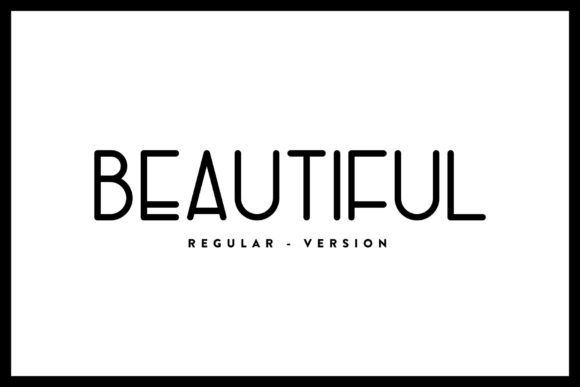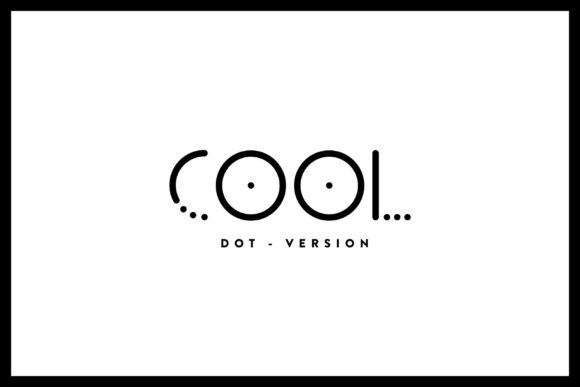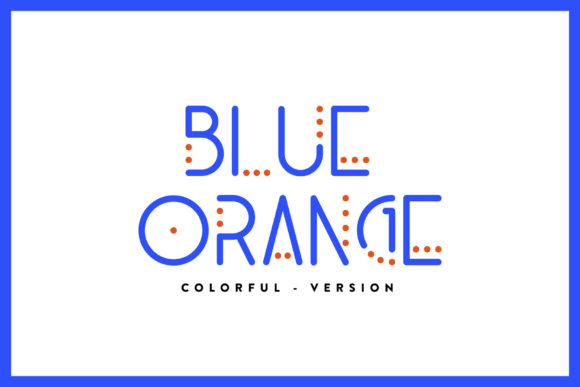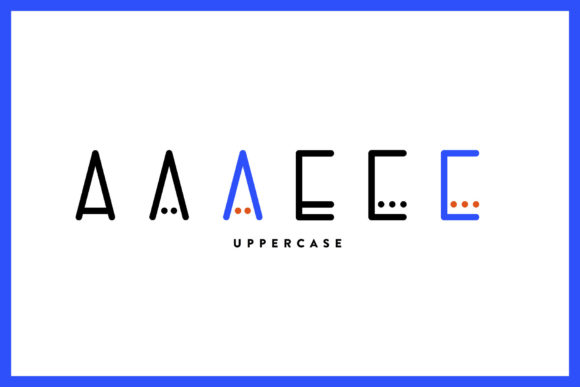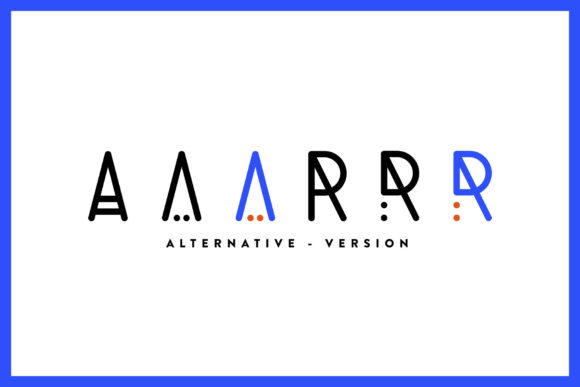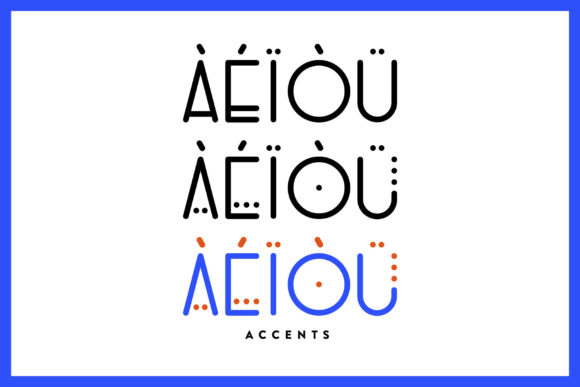
Cornella Font: Elevate Your Designs with a Modern Sans Serif Marvel
In the world of typography, a font can make or break a design. With the vast array of fonts available, it can be daunting to find the perfect one that suits your creative vision. However, if you’re looking for a modern sans serif font that can elevate any creation, look no further than Cornella Font. In this article, we’ll dive into the features and benefits of Cornella Font, and explore why it’s an incredibly valuable asset to your font library.
A Modern Sans Serif Font for Every Project
Cornella Font is a sleek and contemporary sans serif font that is perfect for a wide range of design projects. Whether you’re working on a branding campaign, a website, or a craft project, Cornella Font is versatile enough to adapt to any topic or theme. Its clean lines, precise curves, and balanced proportions make it an excellent choice for designers and crafters who want to add a touch of sophistication to their work.
PUA Encoding for Easy Access to Glyphs and Swashes
One of the standout features of Cornella Font is its PUA (Private Use Area) encoding. This means that you can access all the glyphs and swashes with ease, giving you greater creative control over your designs. With PUA encoding, you can effortlessly navigate through the font’s extensive character set, including ligatures, alternates, and ornaments. This feature is particularly useful for designers who want to add a personal touch to their work or create unique and eye-catching text arrangements.
Why Cornella Font is a Valuable Asset to Your Font Library
Cornella Font is more than just a beautiful font – it’s an incredibly valuable asset to your font library. Here are a few reasons why:
- Versatility: Cornella Font is suitable for a wide range of design projects, from branding and advertising to web design and crafting.
- Legibility: The font’s clear and precise lines make it highly legible, even at small sizes.
- Ease of use: With PUA encoding, you can easily access all the glyphs and swashes, making it simple to incorporate into your designs.
- Unique character: Cornella Font has a distinct personality that sets it apart from other sans serif fonts.
Design and Craft Applications for Cornella Font
Cornella Font is an excellent choice for a variety of design and craft projects, including:
- Branding and logos: Create a lasting impression with a custom logo or branding campaign featuring Cornella Font.
- Web design: Use Cornella Font to create a modern and responsive website that stands out from the crowd.
- Social media graphics: Elevate your social media presence with eye-catching graphics and typography.
- Crafting and DIY projects: Add a personal touch to your crafting and DIY projects with Cornella Font.
In conclusion, Cornella Font is a modern sans serif font that is sure to elevate any design or craft project. With its PUA encoding, versatility, legibility, and unique character, it’s an incredibly valuable asset to your font library. Whether you’re a designer, crafter, or DIY enthusiast, Cornella Font is a must-have font that will help you create stunning and professional-looking work. So why wait? Add Cornella Font to your collection today and discover the endless possibilities it has to offer!